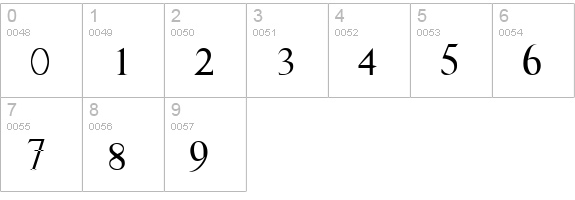
Frank Regular Font Details
Frank Regular is the standard, neutral variant in the Frank typeface family \xE2\x80\x94 well suited to general body text, paragraphs, and standard typographic work.
Frank Regular font is a versatile and stylish typeface that exudes classic elegance with a modern twist. Its clean lines and balanced proportions make it perfect for a wide range of design projects, from branding to editorial design. The timeless appeal of Frank Regular font is sure to elevate any text it is applied to, adding a touch of sophistication and refinement. Best of all, Frank Regular font is available for free download at FontsMarket.com. This means that you can easily access this high-quality typeface without any cost, making it a valuable addition to your font library. Whether you are a graphic designer, web developer, or enthusiast looking to enhance your projects, Frank Regular font is a fantastic choice that combines both beauty and functionality. Download it today and discover the endless possibilities it offers for your creative endeavors.